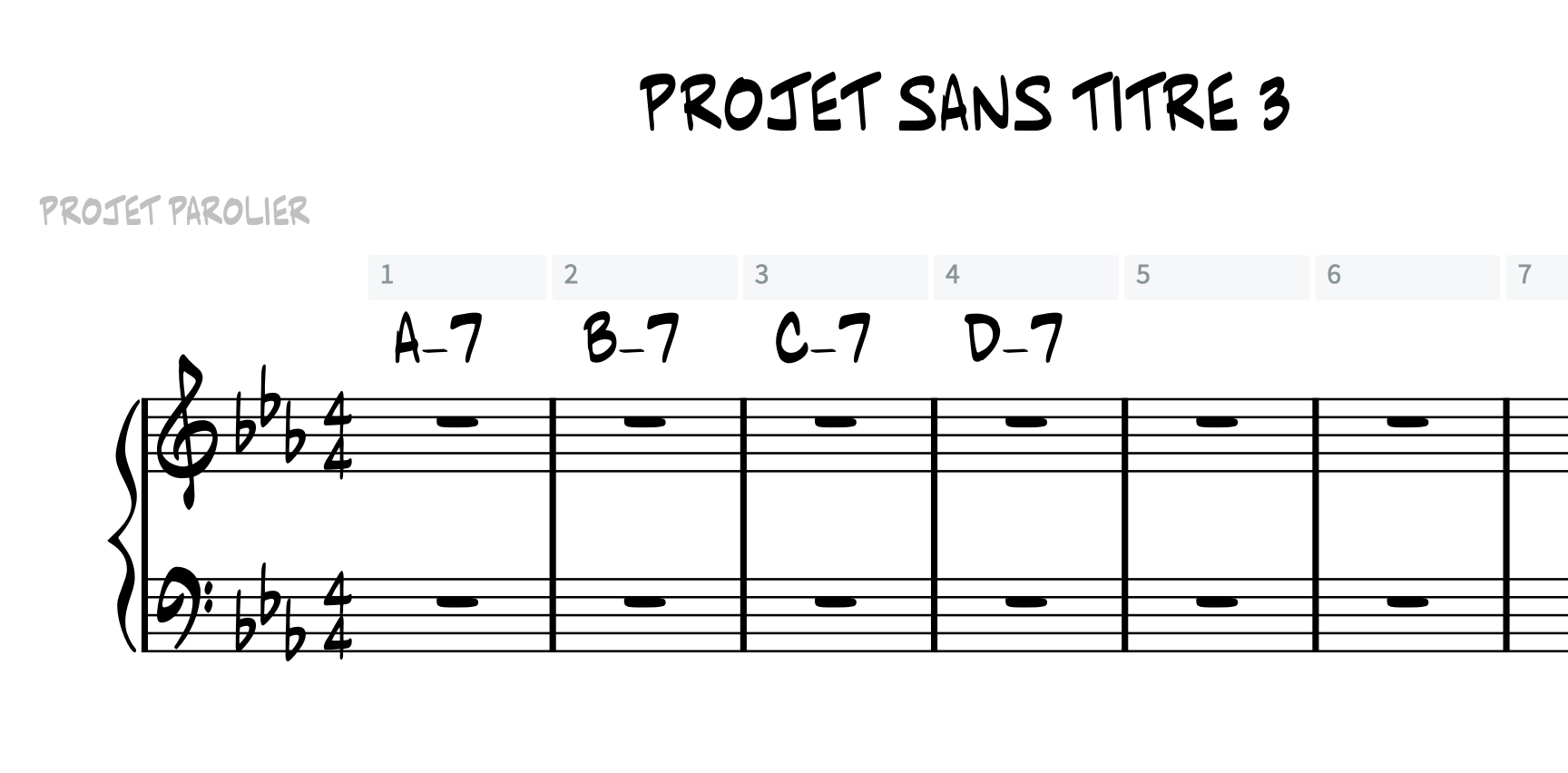
Based on my old NorPen handwritten fonts and being re-drawn from scratch, I released my newest SMuFL jazz font called "BlueNotes ", I hope you like the new design:
Itās possible to make awesome text boxing in Dorico and Finale v27. In Dorico by activating Underline, Overline or both.
Activating both Underline and Overline
Activating Underline
Activating Overline
Or by typing text combinations
Text combination: {Medium-swing}
Text combination: [Me d i u m S_w_in _g]
Text combination: ā¤Melldillulmll IIS||wlin|g>
BONUS: 4 DIFFERENT TREBLE CLEFS
BlueNotes fonts feature 4 different treble clefs that you can access through Library/Music Symbols⦠in Dorico or through Document Options/Clefs/Clef Designer in Finale v27.
Iām really impressed with your work. Congratulations! This font has that original Real Book flavour that I love for lead sheets.
I just wanted to ask you about the hybrid chord symbols or inversions such as C/Bb, C/E, etc. I find the slash a bit too big for the space I use to have on some tunes, ballads especially that may have four chords per measure. Do you know if there is a way to set up Dorico to present such a smaller slash?
If thatās because you are using the āDiagonal arrangementā Engraving Options setting, Dorico doesnāt give you any control over the kerning here. I made a āChord Symbols Slash Fontā doricolib file that will allow you to reduce the size of the slash which will also reduce the kerning to improve the appearance:
I purchased the Bluenotes font⦠why is the ā-ā (minor) sign very thin in my scores (have a lot to my screenshots) but very thick in your screenshot presentation of this font on the top of this topic.
PS// By the way, I would have appreciated if this font had a lowercase āmā for minor chords.
I bought your BlueNotes Font from you and itās looking fantastic! But a minor point is, that for arrangements in German language your BlueNotesAlpha set is missing an important character the āĆā so I canāt use it in German. It gives back an āĆ ā wich is something completely different and not useable in German. Itās funny because you have the other two āumlautsā namely āĆā and āĆā.